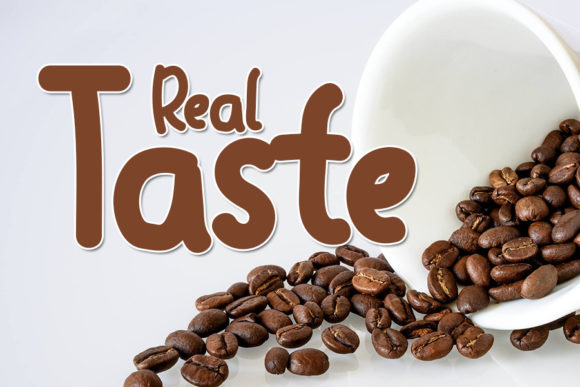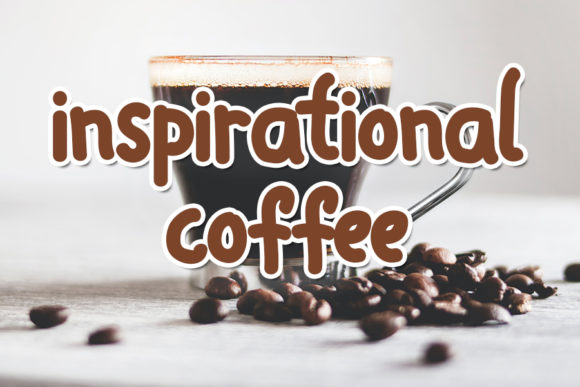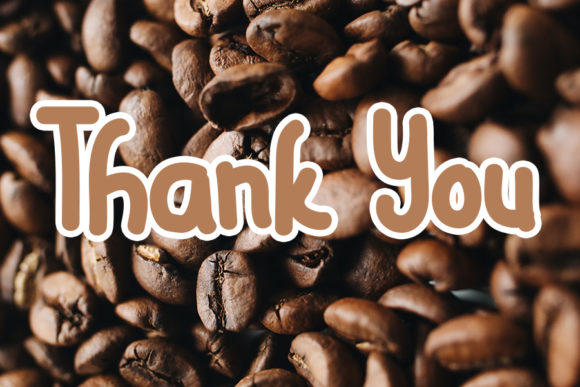
Introduction to Shop Coffee Font
As a designer, there’s nothing quite like the thrill of bringing a creative project to life. It’s the moment when all the pieces fall into place, and your idea suddenly becomes a stunning reality. But, what makes the difference between a good design and a great one? For me, it’s all about the typography – the font that sets the tone and elevates the entire aesthetic.
That’s where Shop Coffee Font comes in – a bold and fun display font that’s sure to take your designs to the next level. With its high-quality design and transparent background, it’s the perfect resource for any creative project. Whether you’re working on a free download or a paid project, Shop Coffee Font is an invaluable addition to your design toolkit.
Key Features of Shop Coffee Font
- High-quality design resource perfect for creative projects, such as coffee shops, cafes, and restaurants.
- Transparent background, allowing for seamless integration with any design or background image.
- Unique, modern design that is sure to elevate the visual identity of any coffee shop or cafe.
Honest Review: Shop Coffee Font
I recently had the chance to try out the Shop Coffee Font, and I have to say it’s a great addition to any design resource library. ✨ The font is free to download, which is always a plus, and it comes with a transparent background, making it easy to use in a variety of creative projects.
Here are some of the things I like about Shop Coffee Font:
- High-quality design that’s perfect for coffee shops, cafes, and other food-related businesses
- Comes with a transparent background, making it easy to use in different design contexts
- The font is only available in a limited range of weights and styles
- May not be suitable for use in formal or professional settings
Overall, I think Shop Coffee Font is a great choice for designers who need a high-quality, free font for a creative project. While it may not be perfect, it’s a solid addition to any design resource library. ⚠️
Shop Coffee Font
The Shop Coffee Font is ideal for designs that require a high-quality, modern, and elegant look. It is commonly used in creative projects such as coffee shop branding, food and beverage packaging, and interior design.
Tips for Getting the Most Out of Shop Coffee Font
To get the most out of the Shop Coffee Font, use it with a transparent background to create a modern and minimalist design. Experiment with different font sizes and styles to add depth and interest to your design.
Alternatives to Shop Coffee Font
A beautiful, elegant script font perfect for creative projects requiring a high-quality, handwritten touch. It’s a great choice for wedding invitations, branding, and other design elements where a sophisticated look is desired.
Compared to Shop Coffee Font, Alex Brush offers a more refined and delicate appearance, making it ideal for projects where a subtle, handwritten feel is required.
A modern, sans-serif font ideal for design projects where a clean and minimalist aesthetic is desired. It’s a great choice for branding, marketing materials, and websites requiring a professional look.
Unlike Shop Coffee Font, Pacifico offers a more contemporary feel, making it suitable for a wide range of creative projects, from fashion to technology.